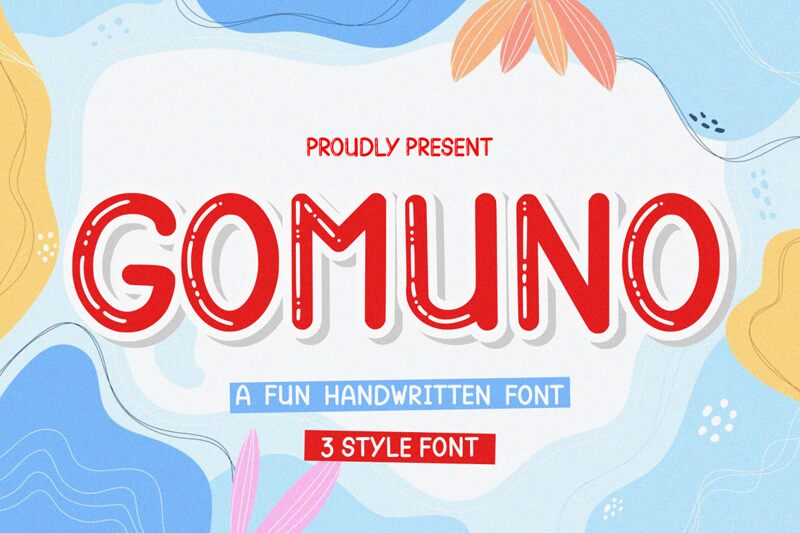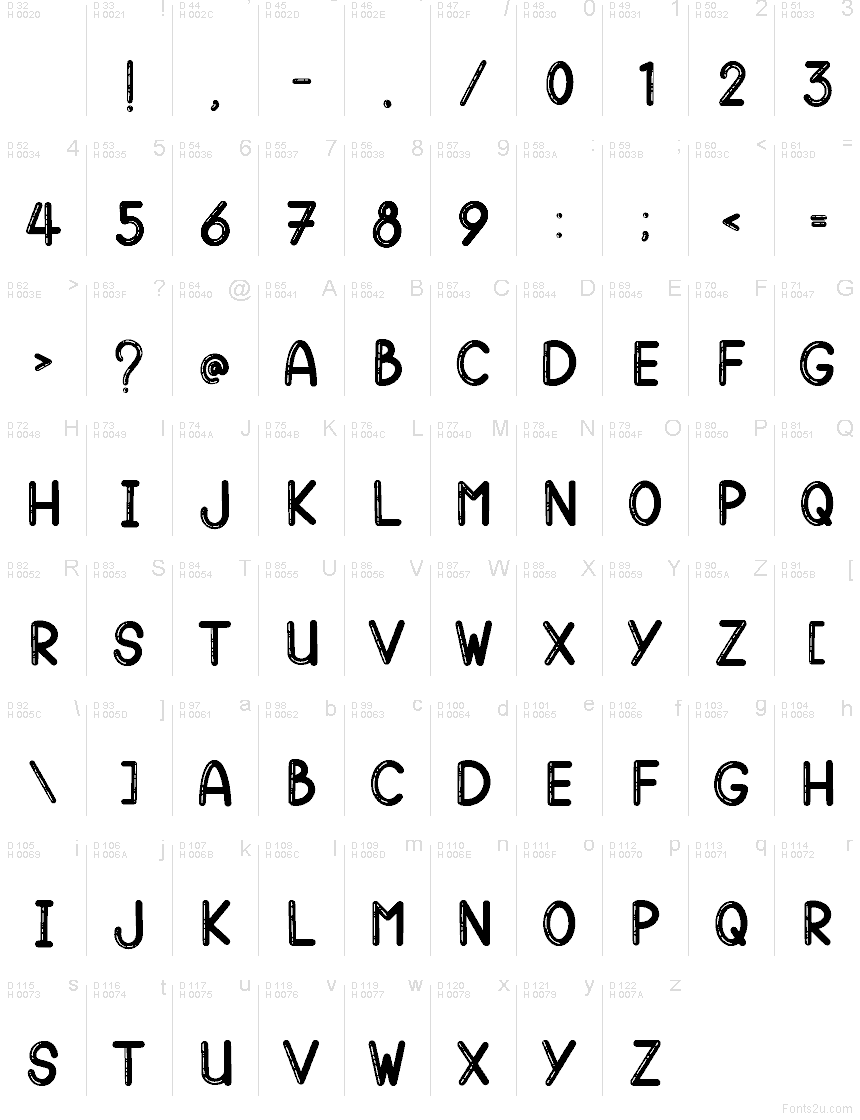
Gomuno Bubble
Gomuno Bubble font by Essentials Studio is a free cartoon display typeface that looks like it was drawn with a bold, inky marker on a shiny balloon. Its tall, rounded letters are plump and bouncy, with playful inner dots that feel like bubbles rising to the surface. The overall texture is slightly rough and hand-doodled, giving every word a friendly, homemade charm that instantly reads as fun and lighthearted.
Using Gomuno Bubble, your titles pop off the page on kids’ posters, birthday invitations, classroom printables, game logos, YouTube thumbnails, and playful sticker or candy packaging. This free font works best at larger sizes where its bubbly details can really breathe. For supporting text, pair it with a clean rounded sans serif to keep everything readable while letting Gomuno Bubble do the smiling.